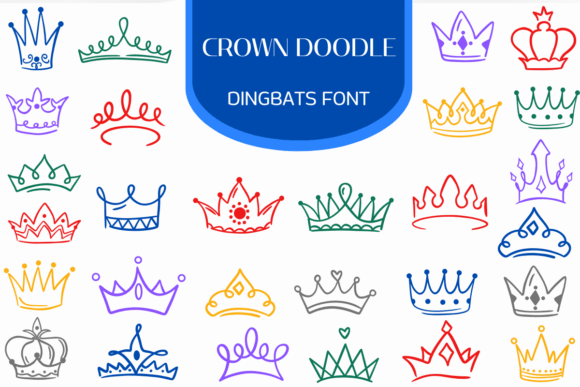
Crown Doodle Font: Elevate Your Creativity with this Unique Dingbats Font
In the world of typography, fonts play a crucial role in conveying messages, expressing emotions, and adding personality to written content. Among the numerous font styles available, dingbats fonts have gained popularity for their versatility and creative freedom. One such font that has caught the attention of designers and writers alike is the Crown Doodle Font. In this article, we’ll explore the features, uses, and benefits of the Crown Doodle Font, and how it can elevate your creativity in various design projects.
What is Crown Doodle Font?
Crown Doodle Font is a unique dingbats font that features a collection of hand-drawn doodles, crown motifs, and decorative elements. The font is designed to add a touch of elegance, whimsy, and playfulness to your written content. With its distinctive style, Crown Doodle Font is perfect for taking notes, writing a diary, or creating greeting cards. However, its uses extend far beyond these applications, making it a versatile addition to your font library.
Exploring the Creative Possibilities of Crown Doodle Font
The Crown Doodle Font is an incredibly versatile font that can be used in a wide range of design projects. Here are some ideas to get you started:
- Note-taking and journaling: Add a personal touch to your notes and journal entries with the Crown Doodle Font. The font’s decorative elements and crown motifs make it perfect for bullet journaling, to-do lists, and daily planners.
- Greeting cards and invitations: Create unique and eye-catching greeting cards, invitations, and party decorations with the Crown Doodle Font. The font’s whimsical style is sure to impress your friends and family.
- Banners and signage: Use the Crown Doodle Font to create stunning banners, posters, and signs for events, sales, or promotions. The font’s bold and playful style is sure to grab attention.
- Social media graphics: Elevate your social media presence with Crown Doodle Font. Create engaging graphics, quotes, and posts that showcase your brand’s personality.
- Mugs, cards, and stationery: Add a personal touch to your gifts and stationery with the Crown Doodle Font. The font’s decorative elements make it perfect for designing custom mugs, cards, and journals.
- T-shirts and apparel: Create unique and stylish apparel with the Crown Doodle Font. The font’s bold and playful style is sure to make your designs stand out.
Why Choose Crown Doodle Font?
The Crown Doodle Font offers several benefits that make it an excellent addition to your font library:
- Unique and distinctive style: The Crown Doodle Font features a one-of-a-kind design that sets it apart from other fonts.
- Versatility: The font can be used in a wide range of design projects, from note-taking to social media graphics.
- High-quality design: The font is designed with high-quality graphics, ensuring that your designs look professional and polished.
Tips for Getting the Most Out of Crown Doodle Font
Here are some tips to help you get the most out of the Crown Doodle Font:
- Experiment with different sizes and colors: Play around with different font sizes and colors to find the perfect combination for your design.
- Mix and match with other fonts: Combine the Crown Doodle Font with other fonts to create visually appealing and dynamic designs.
- Use the font consistently: Use the Crown Doodle Font consistently throughout your design project to create a cohesive look.
- Don’t be afraid to get creative: The Crown Doodle Font is designed to be creative and playful, so don’t be afraid to experiment and try new things.
In conclusion, the Crown Doodle Font is a unique and versatile dingbats font that can elevate your creativity in various design projects. With its distinctive style, ease of use, and high-quality design, this font is perfect for designers, writers, and anyone looking to add a personal touch to their written content. Whether you’re creating greeting cards, social media graphics, or simply taking notes, the Crown Doodle Font is an excellent choice.